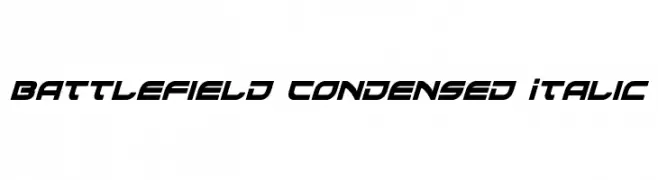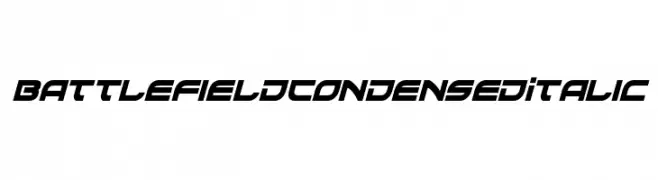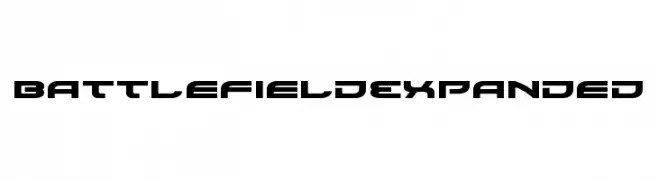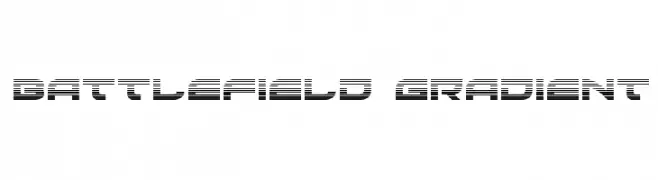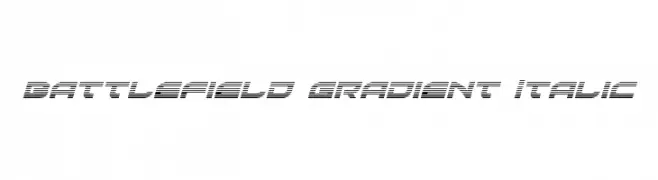
A bold, geometric, and futuristic font with a condensed style.
A bold, condensed italic font with a modern, dynamic style.
A bold, condensed, and italicized font with a modern, angular design.
A futuristic, bold font with geometric and angular design.
A bold, futuristic font with geometric and angular design elements.
A bold, expanded, and italicized font with a futuristic and dynamic style.
A bold, expanded, and italic font with a futuristic and dynamic style.
A futuristic font with horizontal line gradients creating a digital effect.
A futuristic, gradient-lined font with a digital and modern aesthetic.
A bold, italicized font with a gradient effect and modern, futuristic style.